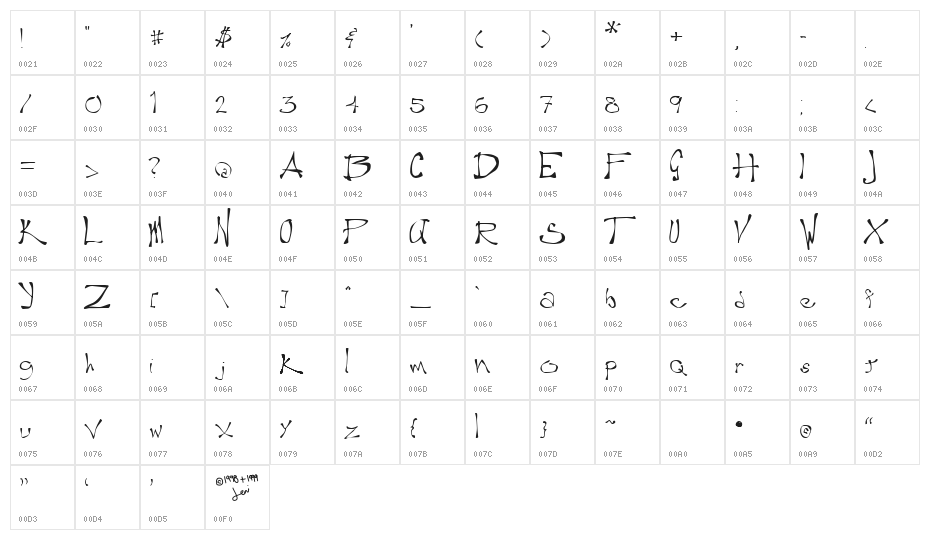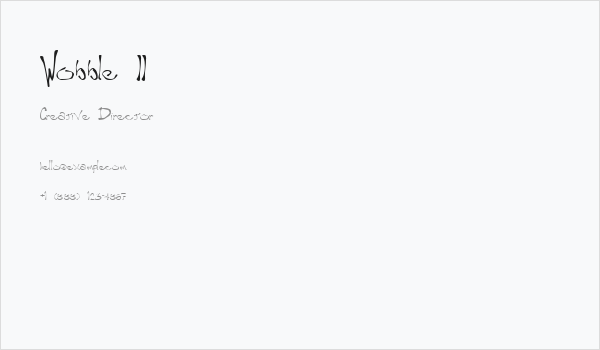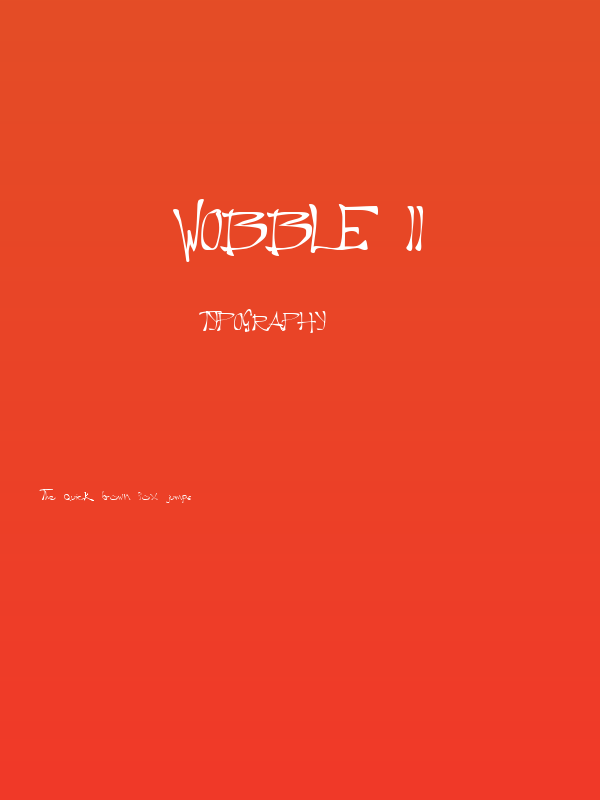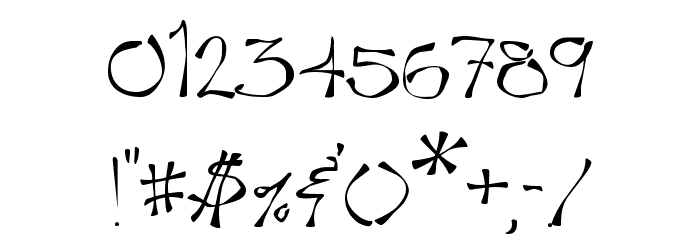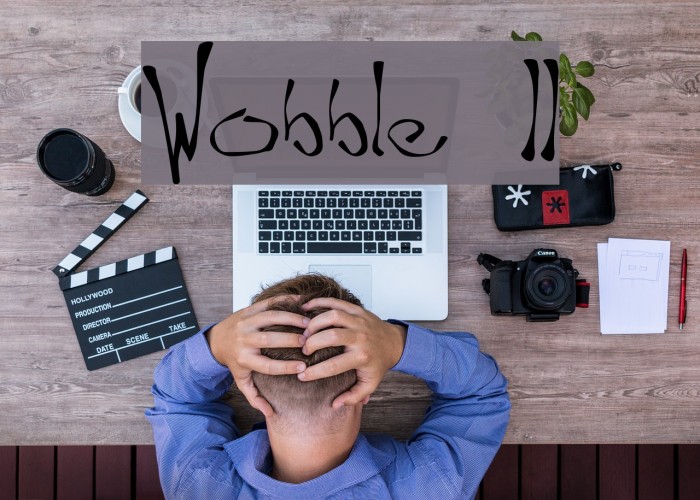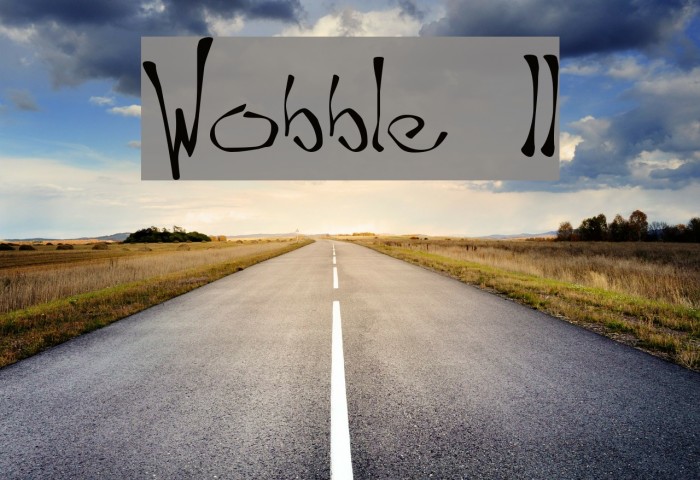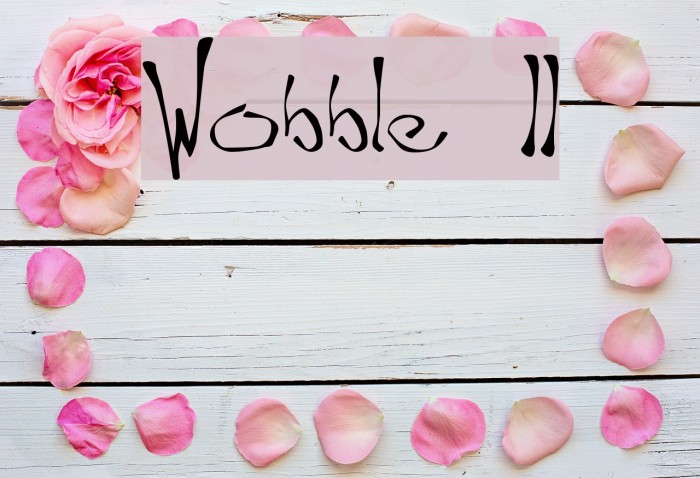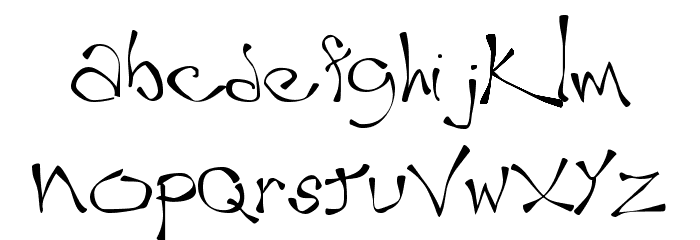
Wobble II Font
Wobble II Description
This font features a playful and dynamic style, characterized by its irregular, wavy lines and whimsical appearance. The letters exhibit a hand-drawn quality, with varying stroke thickness that adds to its lively and energetic feel. Each character seems to dance across the page, creating a sense of movement and spontaneity. The font maintains legibility while offering a unique and artistic flair, making it suitable for creative and informal applications. Its distinctive style can capture attention and convey a sense of fun and creativity.
| Overall Style | Whimsical and Artistic |
| Use Case | Headlines, Logos, Creative Projects |
| Proposed Projects | Ideal for children's book covers, playful branding, creative posters, and artistic invitations. |